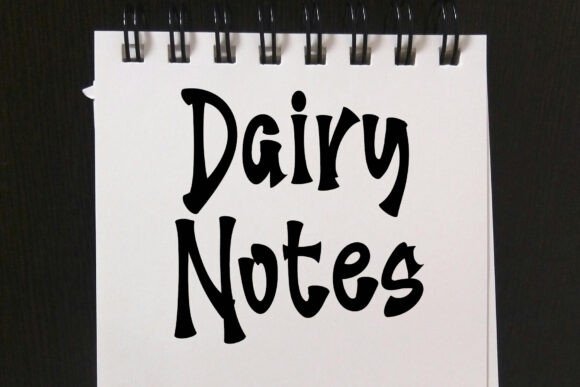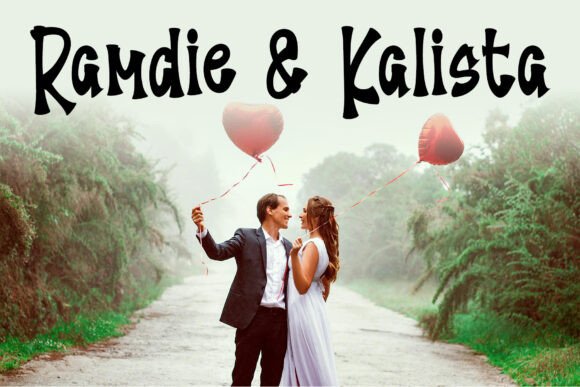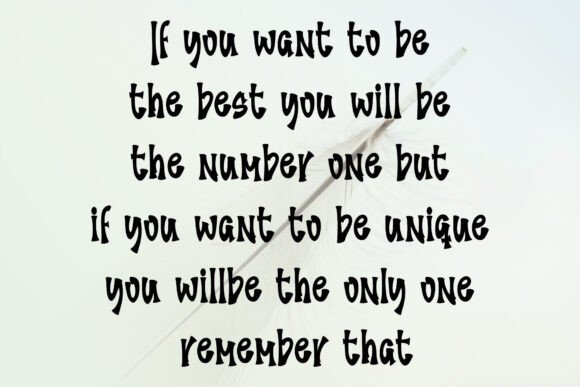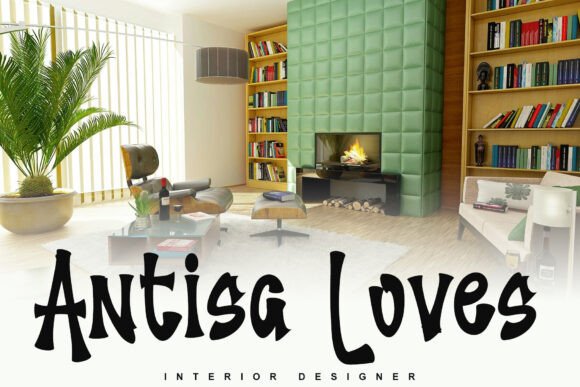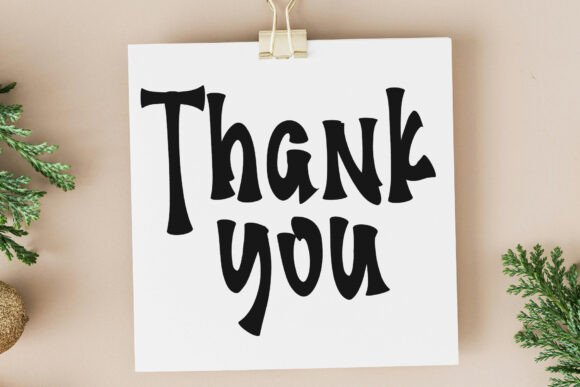
Discover the Delight House Font: Elevate Your Designs with this Stunning Display Font
Are you a designer, crafter, or DIY enthusiast looking for a font that can add a touch of elegance and sophistication to your projects? Look no further than the Delight House font! This beautiful display font is perfect for creating stunning designs, from magazines and crafts to branding and advertising materials.
What is the Delight House Font?
The Delight House font is a lovely, hand-crafted typeface designed to make your designs stand out. Its unique and intricate details make it perfect for use in a variety of creative projects, from digital designs to print materials. Whether you’re creating a magazine, a craft project, or a branding campaign, this font is sure to add a touch of whimsy and charm.
Key Features of the Delight House Font
- Beautiful Display Font: The Delight House font is a stunning display font that is sure to grab attention. Its elegant and refined design makes it perfect for use in headlines, titles, and other display text.
- Perfect for Magazines and Crafts: This font is ideal for use in magazines, crafts, and other creative projects. Its unique and intricate details make it perfect for adding a touch of personality and style to your designs.
Why Choose the Delight House Font?
There are many reasons why the Delight House font is a great choice for designers and crafters. Here are just a few:
- Unique and Eye-Catching: This font is unlike anything you’ve seen before. Its unique and intricate details make it perfect for adding a touch of personality and style to your designs.
- Elegant and Refined: The Delight House font is an elegant and refined typeface that is sure to add a touch of sophistication to your designs.
- Versatile: This font can be used in a variety of creative projects, from digital designs to print materials.
How to Use the Delight House Font
Using the Delight House font is easy! Simply add it to your fonts library and use it to create stunning designs. Here are a few ideas to get you started:
- Magazine Design: Use the Delight House font to create stunning magazine designs that will grab attention and leave a lasting impression.
- Craft Projects: Add a touch of personality and style to your craft projects with this beautiful display font.
- Branding and Advertising: Use the Delight House font to create eye-catching branding and advertising materials that will help your business stand out.
In conclusion, the Delight House font is a beautiful display font that is perfect for designers, crafters, and DIY enthusiasts. Its unique and intricate details make it perfect for adding a touch of personality and style to your designs. With its elegant and refined design, this font is sure to elevate your designs and leave a lasting impression. So why wait? Add the Delight House font to your fonts library today and start creating spectacular designs!
- The Delight House font is a beautiful display font perfect for magazines and crafts.
- Its unique and intricate details make it perfect for adding a touch of personality and style to your designs.
- This font is ideal for use in a variety of creative projects, from digital designs to print materials.